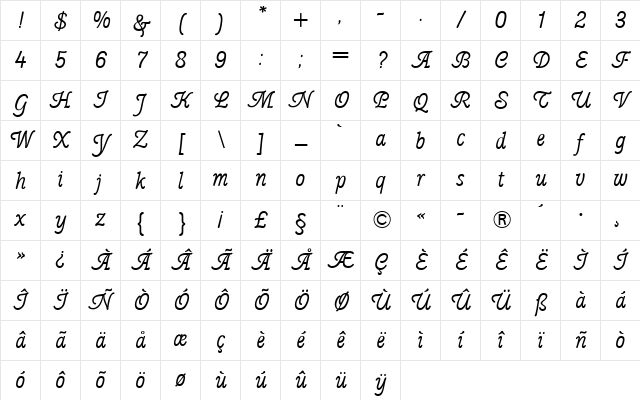
Poppl-College Two BQ Regular
Design Context for Poppl-College Two BQ
Poppl-College Two BQ brings high-energy athletic personality to the page - its confident, muscular forms are built for impact.
Pro Tip: Use Poppl-College Two BQ in all-caps headlines where its athletic energy can fully express itself. Pair with a solid, simple sans for supporting text.